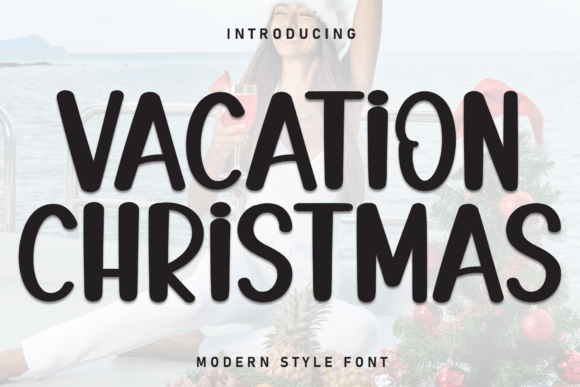
Introducing Vacation Christmas Font: The Perfect Addition to Your Holiday Designs
Are you looking for a font that captures the essence of the holiday season? A font that exudes joy, cheer, and a personal touch? Look no further than Vacation Christmas Font, a fun, handwritten display font designed to bring a festive feel to your holiday designs, greeting cards, and more.
What is Vacation Christmas Font?
Vacation Christmas Font is a unique, handwritten display font that embodies the spirit of the holiday season. Its casual, cheerful style makes it perfect for a wide range of applications, from holiday designs and greeting cards to social media posts and website headers.
This font is designed to add a personal, joyful touch to your designs, making them stand out from the crowd. Whether you’re a designer, a small business owner, or simply someone who loves the holiday season, Vacation Christmas Font is sure to become a favorite in your collection.
Key Features of Vacation Christmas Font
- Handwritten display font: Vacation Christmas Font is a handwritten display font, giving it a personal and unique touch.
- Festive feel: The font is designed to evoke the spirit of the holiday season, making it perfect for Christmas designs, holiday cards, and more.
- Casual, cheerful style: The font’s casual, cheerful style makes it perfect for a wide range of applications, from formal to informal.
- Easy to read: Despite its festive and playful design, Vacation Christmas Font is easy to read, making it perfect for use in a variety of contexts.
Uses for Vacation Christmas Font
Vacation Christmas Font is a versatile font that can be used in a wide range of applications, including:
- Holiday designs: Use Vacation Christmas Font to create festive holiday designs, such as Christmas cards, posters, and social media posts.
- Greeting cards: Add a personal touch to your greeting cards with Vacation Christmas Font, perfect for Christmas, Hanukkah, and other holiday cards.
- Website headers: Use Vacation Christmas Font to add a festive touch to your website headers, perfect for holiday promotions and sales.
- Social media posts: Add some holiday cheer to your social media posts with Vacation Christmas Font, perfect for Facebook, Twitter, Instagram, and more.
Why Choose Vacation Christmas Font?
There are many fonts to choose from, but Vacation Christmas Font stands out from the crowd. Here are just a few reasons why:
- Unique design: Vacation Christmas Font has a unique, handwritten design that sets it apart from other fonts.
- Festive feel: The font’s festive feel makes it perfect for holiday designs and other seasonal applications.
- Easy to use: Vacation Christmas Font is easy to use, even for those who are new to design.
- High-quality: Vacation Christmas Font is a high-quality font, designed to deliver exceptional results in a variety of contexts.
Tips for Using Vacation Christmas Font
Here are a few tips for using Vacation Christmas Font:
- Use it sparingly: Vacation Christmas Font is a bold font, so use it sparingly to avoid overwhelming your design.
- Pair it with other fonts: Pair Vacation Christmas Font with other fonts to create a unique and visually appealing design.
- Experiment with colors: Experiment with different colors to find the perfect combination for your design.
- Have fun: Most importantly, have fun with Vacation Christmas Font! It’s a font designed to bring joy and cheer, so don’t be afraid to get creative.
Vacation Christmas Font is a fun, handwritten display font with a festive feel, perfect for holiday designs, greeting cards, and anything that needs a personal, joyful touch. With its casual, cheerful style and easy-to-read design, it’s sure to become a favorite in your collection.